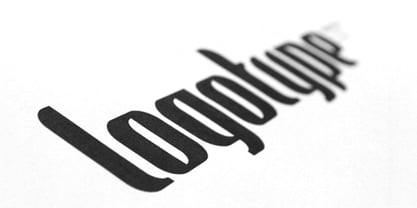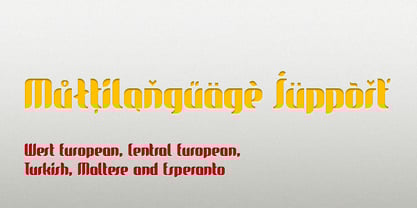
Glide
by Typedepot
Glide Font Family was designed by Alexander Nedelev, Veronika Slavova and published by Typedepot. Glide contains 2 styles.
Elegant custom font with rounded corners, great for logos, posters, motion graphics and t-shirts. The name is inspired by the sleek curves and its smooth look.
About Typedepot
Typedepot co-founders Alexander Nedelev and Veronika Slavova say, “In the beginning, Typedepot was a side project, nothing serious – just experimenting with letterforms. Then, in a moment it just felt more right to do this than anything else.” Based in Sofia, Bulgaria, the duo first came upon type design while working as graphic designers in advertising. “We had absolutely no background in type design,” Alexander says, “but we had this project, a logotype for a small company, which we developed to become the Glide typeface.” Two years later they rented an office, took the plunge and started designing type full time. “Now it’s the thing we do and the thing we love to do.” So far they’ve seen great success with Best Seller Centrale Sans. The modern sans serif typeface was featured as one of MyFonts Most Popular Fonts of 2011 and was featured in our Rising Stars Newsletter that same year. The self-taught designers whose foundry started out as a way to experiment with type, say that their main focus is “to design original typefaces for retail and custom use.”